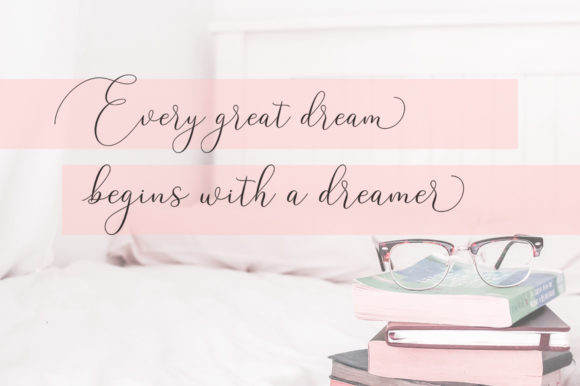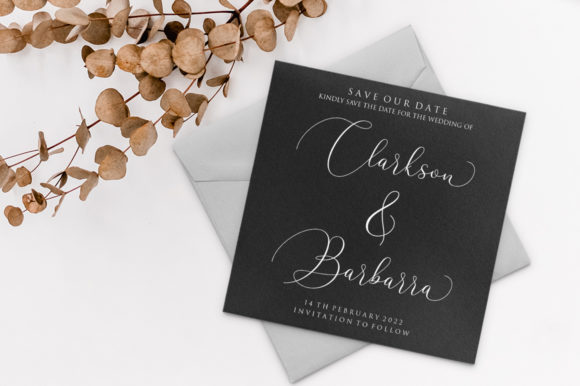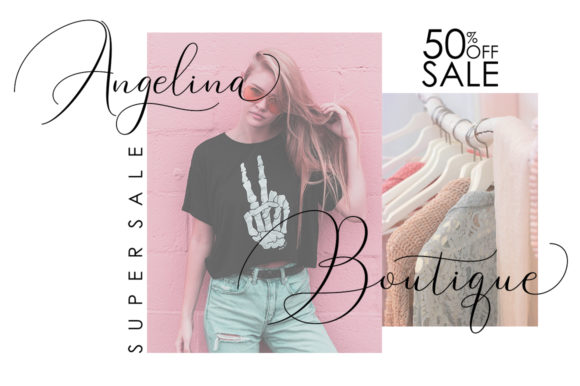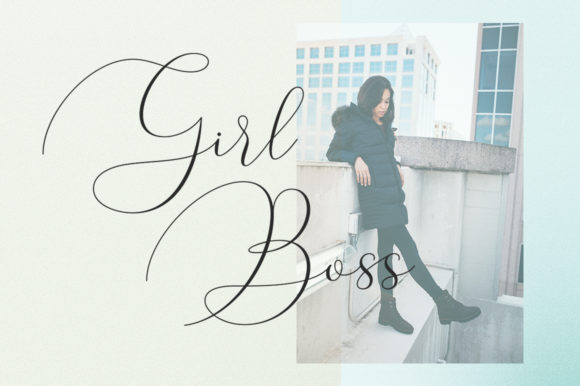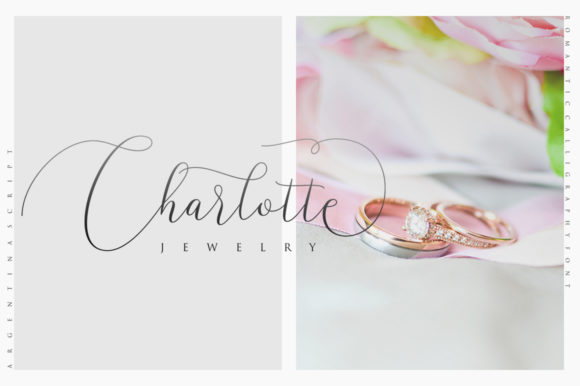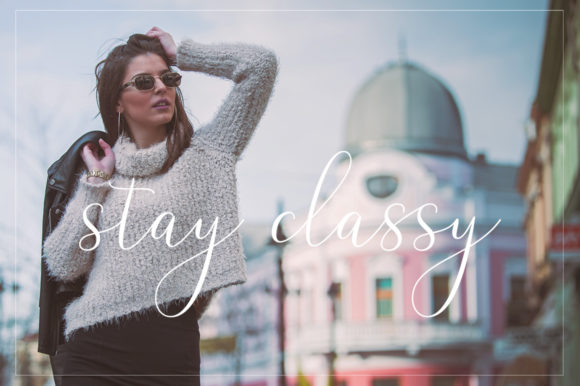
Discover the Charm of Argentina Font: A Romantic Calligraphy Font for Your Designs
Are you looking for a font that adds a touch of elegance and whimsy to your designs? Look no further than the Argentina Font, a beautiful calligraphy font that is sure to capture your heart. With its varying baseline and smooth lines, this font is perfect for designers and crafters who want to add a romantic and lovely feel to their projects.
What Makes Argentina Font So Special?
Argentina Font is a unique and elegant calligraphy font that features a varying baseline, which gives it a distinctive and charming look. The smooth lines and fluid curves of the font create a sense of movement and flow, making it perfect for designs that require a touch of whimsy and romance. Whether you’re working on a wedding invitation, a branding project, or a craft design, Argentina Font is sure to add a special touch to your work.
Key Features of Argentina Font
- Varying Baseline: The font’s varying baseline gives it a unique and charming look that sets it apart from other calligraphy fonts.
- Smooth Lines: The smooth lines and fluid curves of the font create a sense of movement and flow, making it perfect for designs that require a touch of elegance and sophistication.
- Elegant Touch: Argentina Font has a unique elegant touch that makes it perfect for designs that require a touch of luxury and refinement.
- Whimsical Feel: The font’s whimsical feel makes it perfect for designs that require a touch of playfulness and romance.
Uses for Argentina Font
Argentina Font is a versatile font that can be used for a wide range of design projects, including:
- Wedding Invitations: The font’s romantic and elegant feel makes it perfect for wedding invitations, save-the-date cards, and other wedding-related designs.
- Branding Projects: Argentina Font is perfect for branding projects that require a touch of elegance and sophistication, such as logos, business cards, and letterheads.
- Craft Designs: The font’s whimsical feel makes it perfect for craft designs, such as scrapbooking, card making, and other paper crafts.
- Digital Designs: Argentina Font can also be used for digital designs, such as social media graphics, blog headers, and website designs.
Tips for Using Argentina Font
Here are some tips for using Argentina Font in your designs:
- Use it sparingly: Argentina Font is a elegant and sophisticated font, so it’s best to use it sparingly to avoid overwhelming your design.
- Pair it with a simple font: Pair Argentina Font with a simple font, such as a sans-serif font, to create a beautiful contrast.
- Experiment with colors: Argentina Font looks beautiful in a variety of colors, so don’t be afraid to experiment with different colors and gradients.
Argentina Font is a beautiful and elegant calligraphy font that is sure to add a touch of romance and whimsy to your designs. With its varying baseline and smooth lines, this font is perfect for designers and crafters who want to create beautiful and unique designs. Whether you’re working on a wedding invitation, a branding project, or a craft design, Argentina Font is a great choice. So why not give it a try and see the magic for yourself?